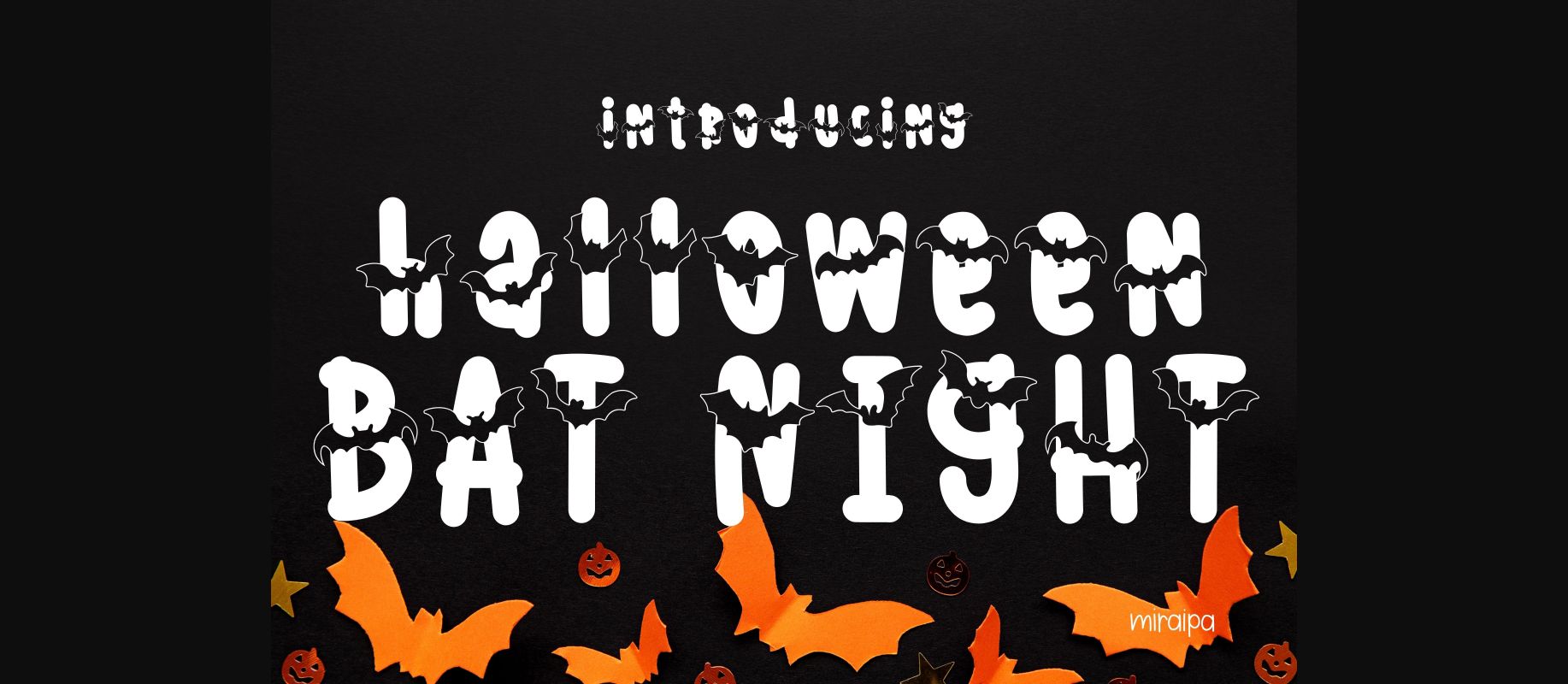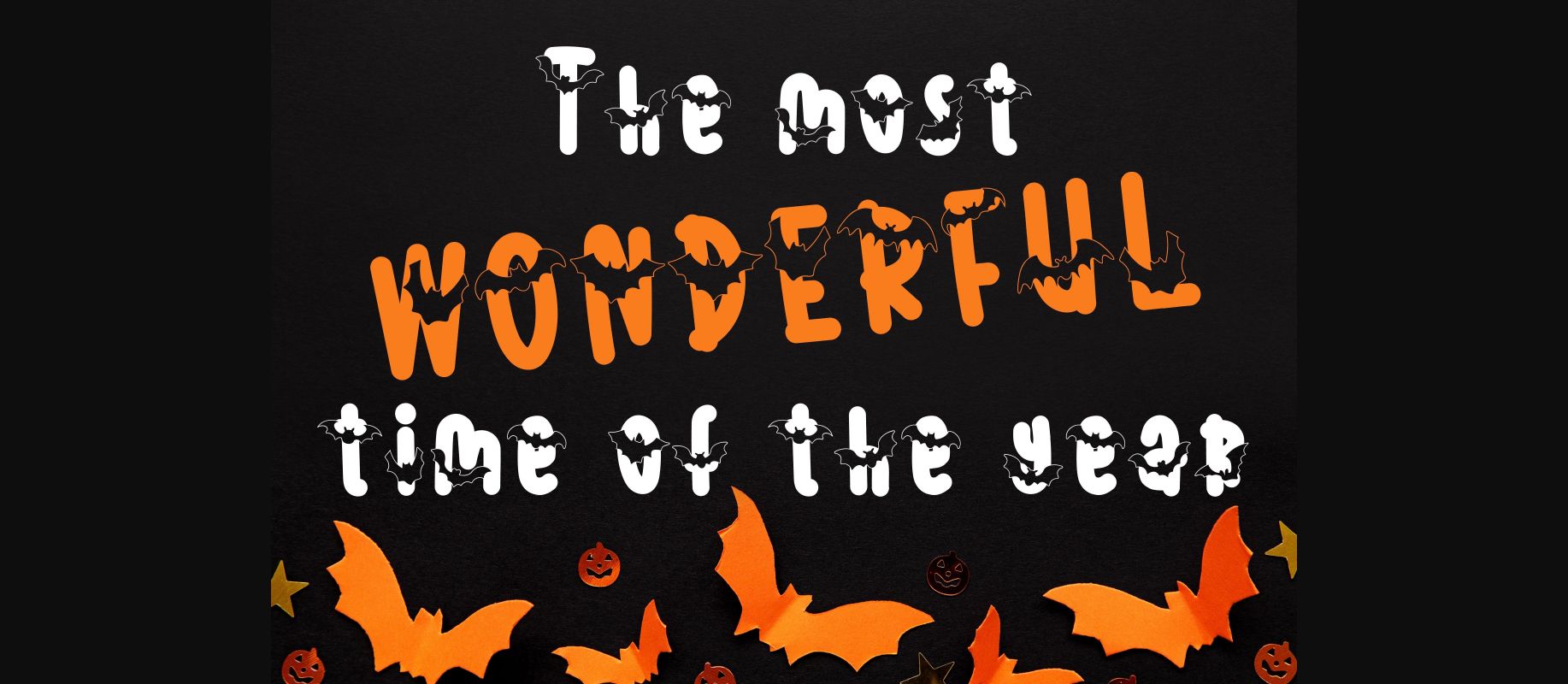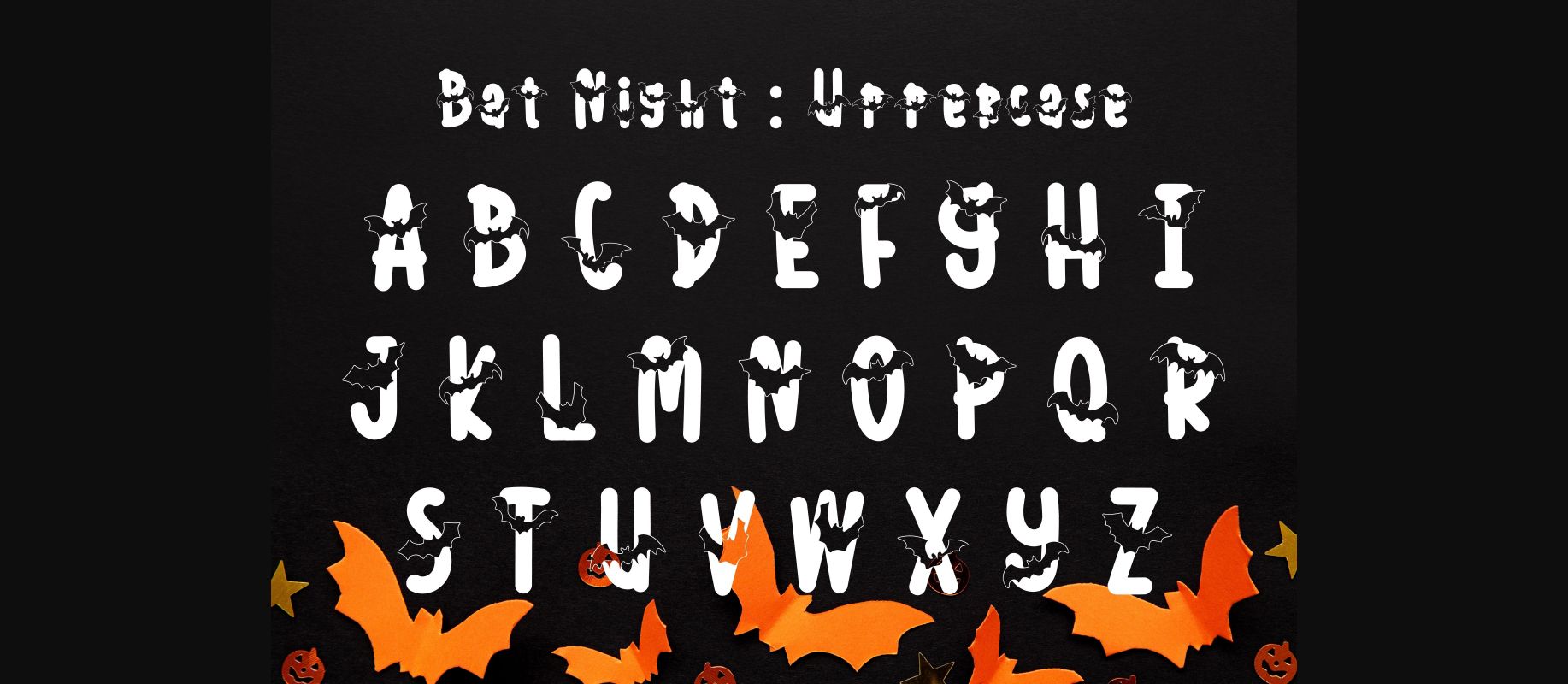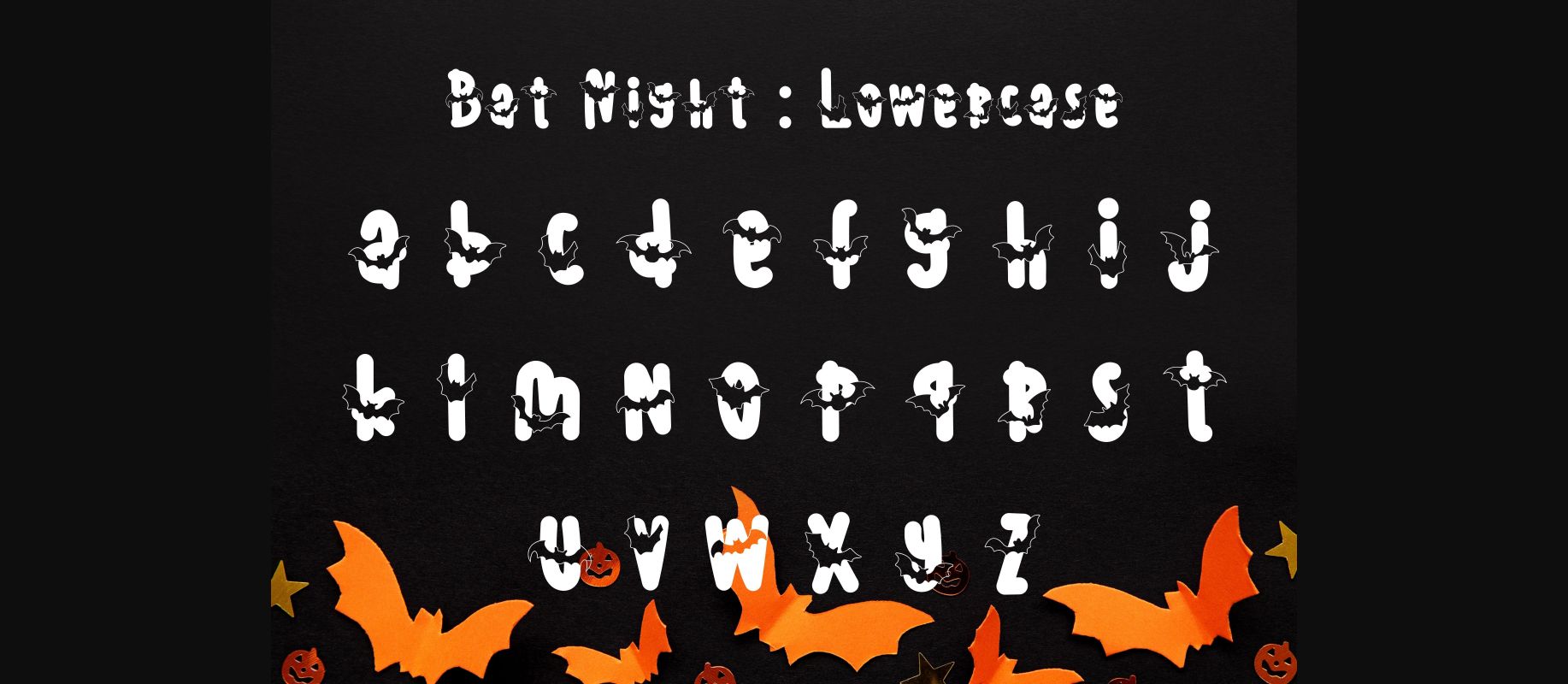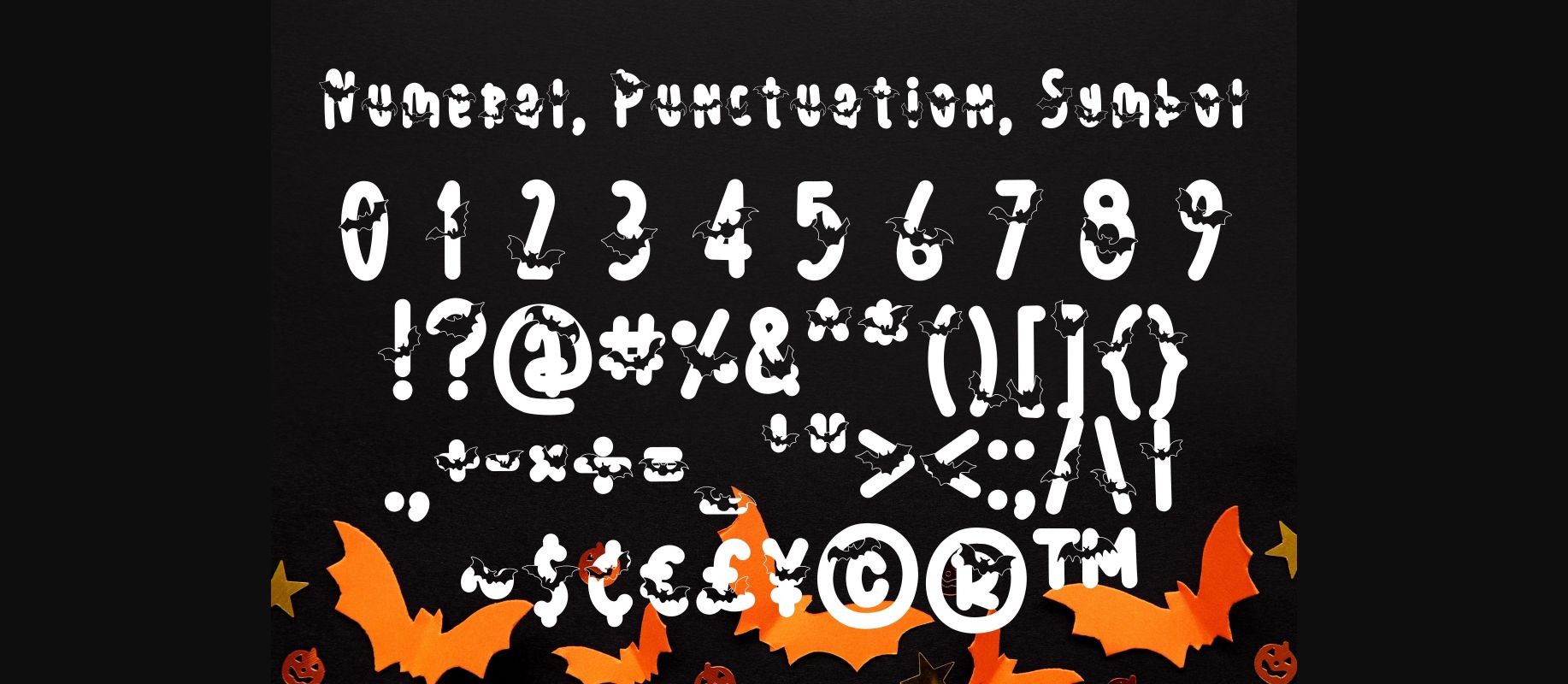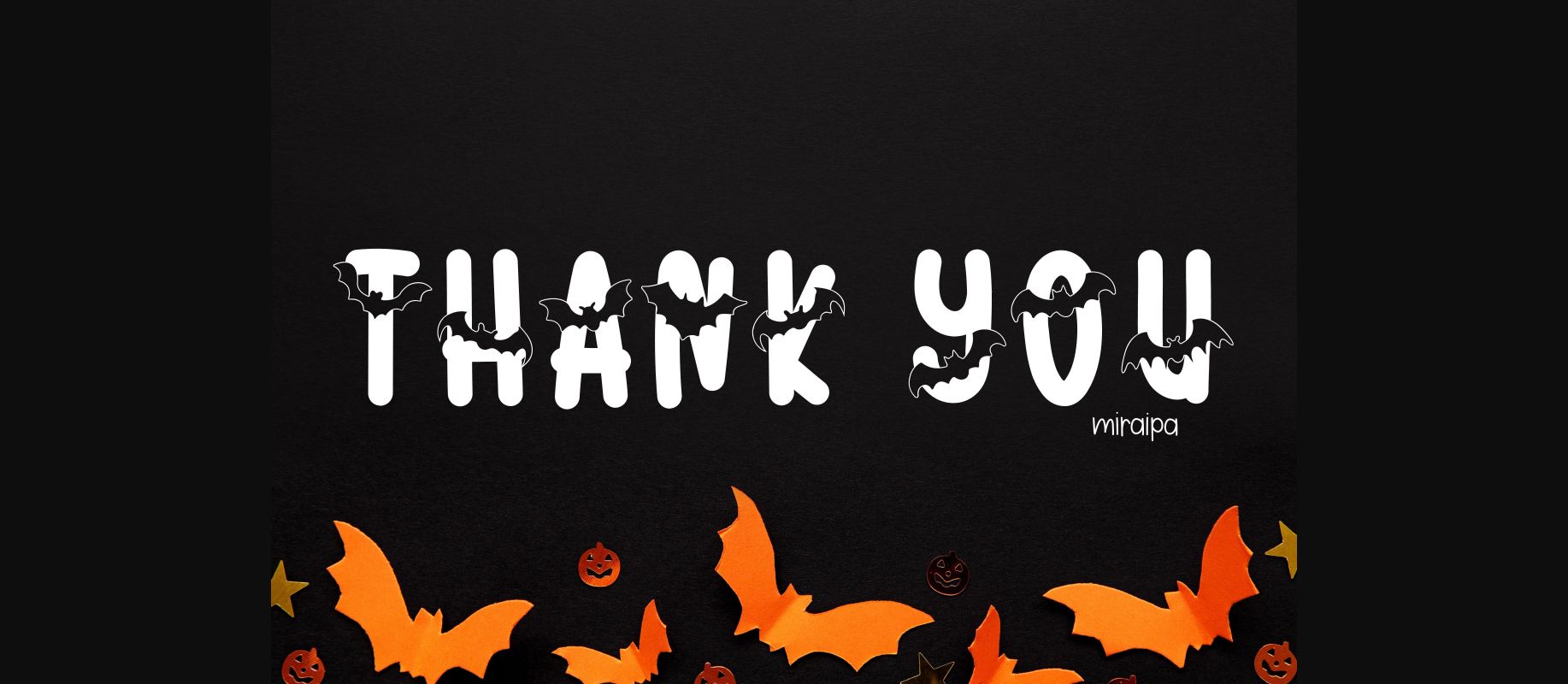
HomeDecorative FontsBat Night Font Decorative Fonts Bat Night Font FacebookXPinterestWhatsApp 1 of 8 ... Bat Night Font Poster 2... Bat Night Font Poster 3... Bat Night Font Poster 4... Bat Night Font Poster 5... Bat Night Font Poster 6... Bat Night Font Poster 7... Bat Night Font Poster 8... About Bat Night Font Bat Night is a fun and whimsical decorative font. Spooky and a little mysterious, this font is perfect for all your Halloween-themed projects, DOWNLOAD NOW People also explored The Ranthing Typeface Font Coffee Lover Font Wild Brush Font Rameline Script Font Superme Font Tiffanyed Font Dumbledork Font Sechan Font Luxmauve Font 370 0 TagsBat Night Font Previous articleSir Hops FontNext articleDino Font LEAVE A REPLY Cancel reply Comment: Please enter your comment! Name:* Please enter your name here Email:* You have entered an incorrect email address! Please enter your email address here Website: Save my name, email, and website in this browser for the next time I comment. Personal Use Free Over the Top Personal Use Free Read more about this font Historise Personal Use Free Read more about this font Bally Girl Personal Use Free Read more about this font Vanity Personal Use Free Read more about this font BLOG How to Install and Use Fonts on Windows, macOS, and Web Projects How to Install and Use Fonts on Windows, macOS, and Web Projects Fonts are a crucial part of design and branding. Whether you’re designing a... The 10 Best Handwriting Fonts to Add Personality to Your Designs Top 7 Google Fonts Alternatives for Faster and Privacy-Friendly Web Design (2025) Free Fonts Risk: Why Free Fonts Can Be Dangerous for Designers